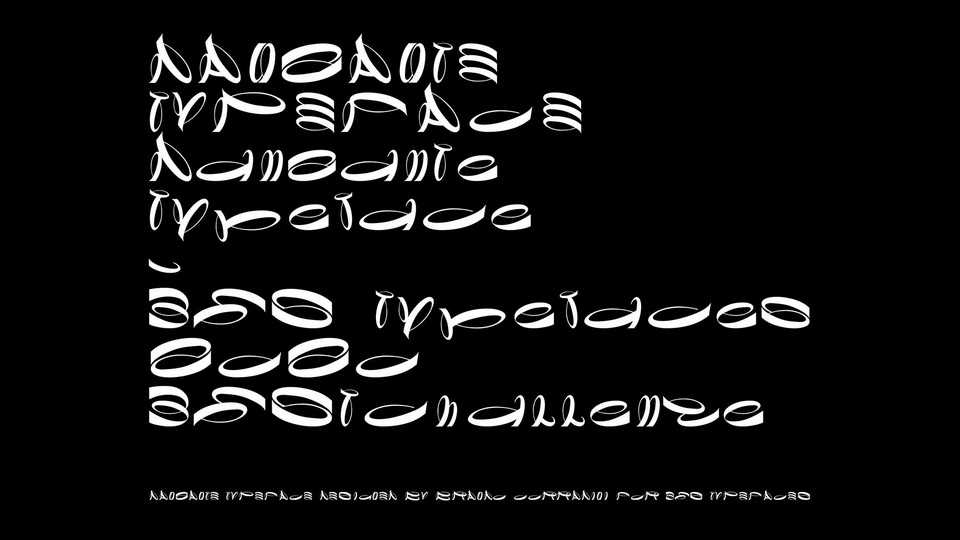
Download Danzante font, a fancy typeface that is inspired by the movement of dance. Danzante pays homage to some of the greatest representatives of this “noble art”, such as Isadora Duncan, Loie Fuller and Rudolf Nureyev.
Designer: Brando Corradini